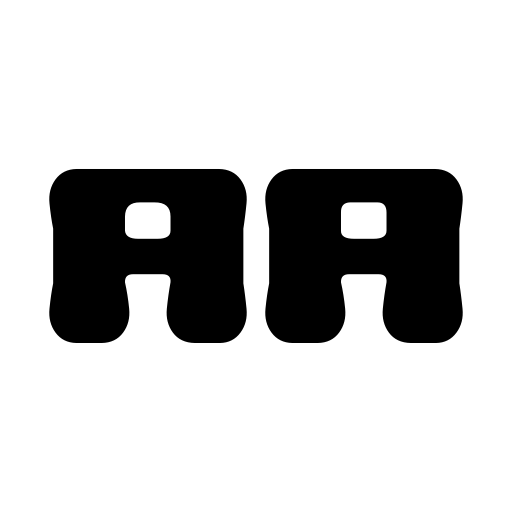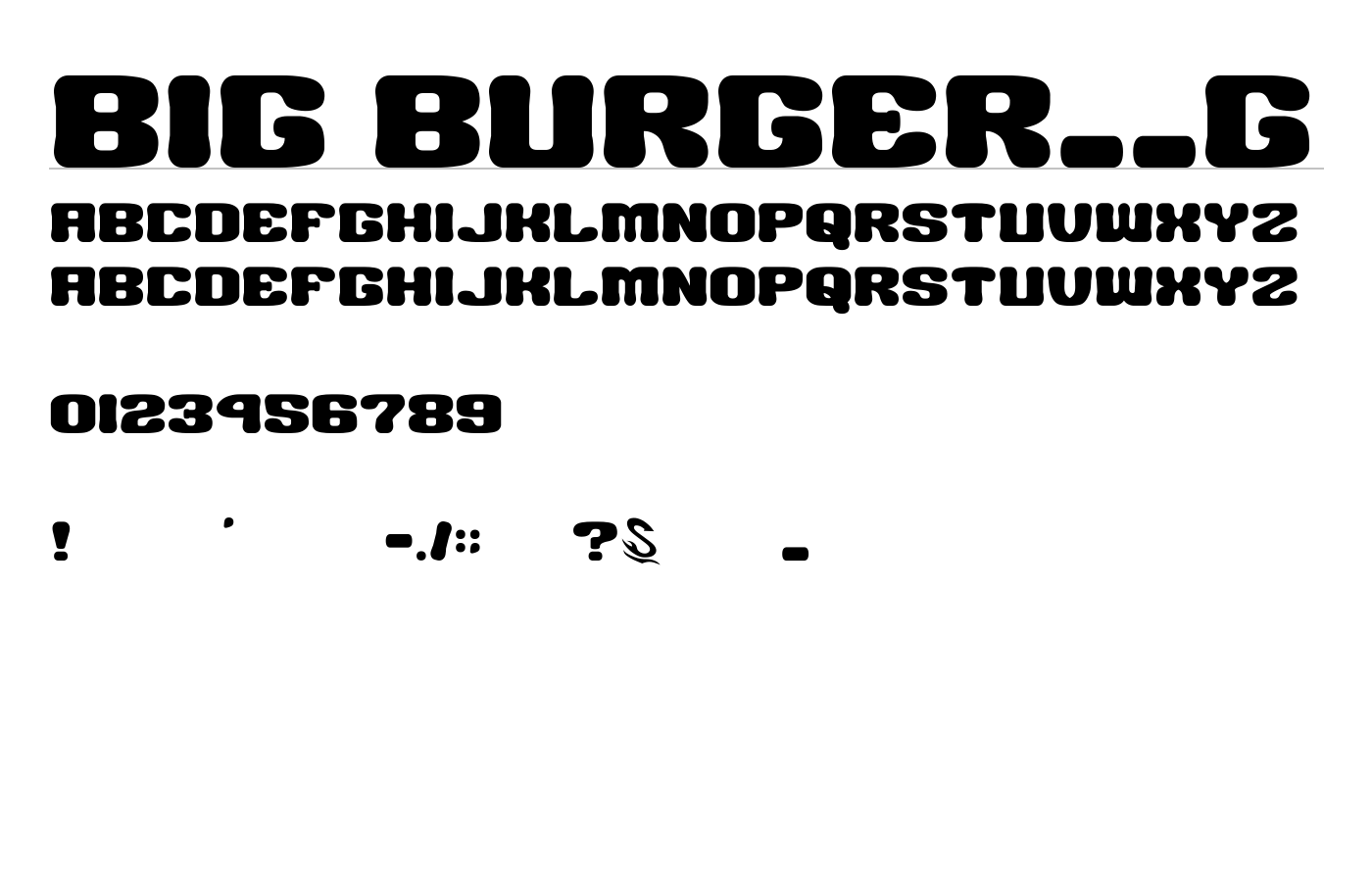
BIG BURGER__G is a bold, rounded sans serif font with a playful and chunky appearance, perfect for grabbing attention. Its heavy weight, wide proportions, and smooth, soft edges give it a friendly, approachable vibe that works great for fun and informal branding, headlines, or packaging. This font’s thick strokes and clear letterforms make it highly legible and ideal for impactful display use.
BIG BURGER__G Font